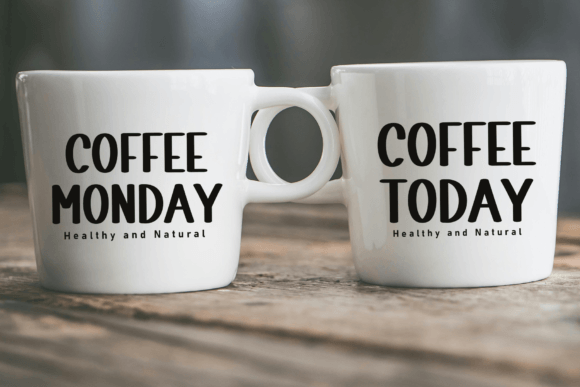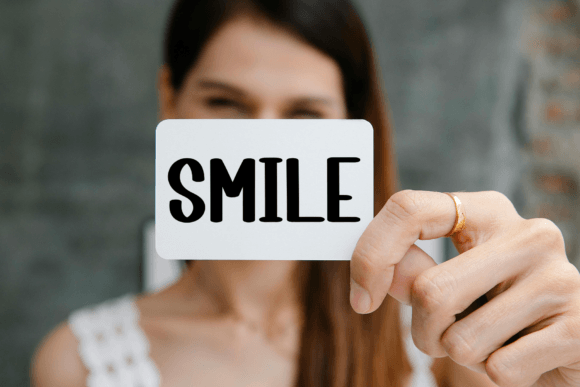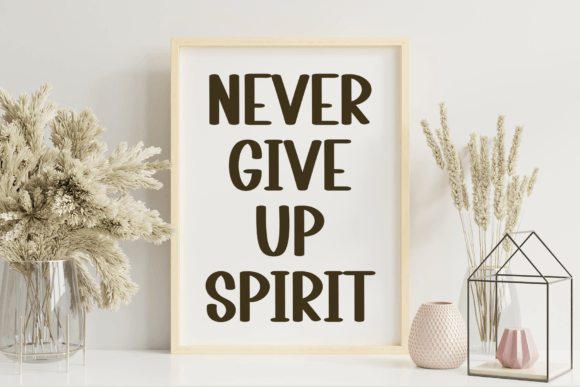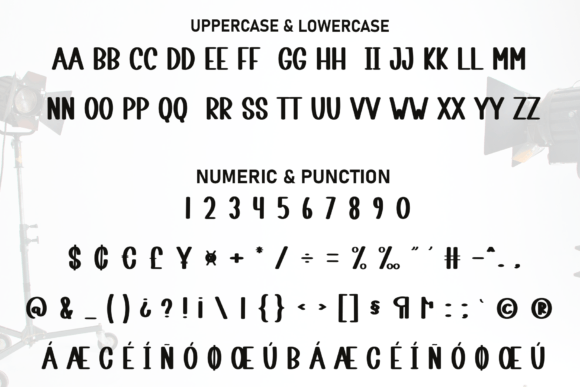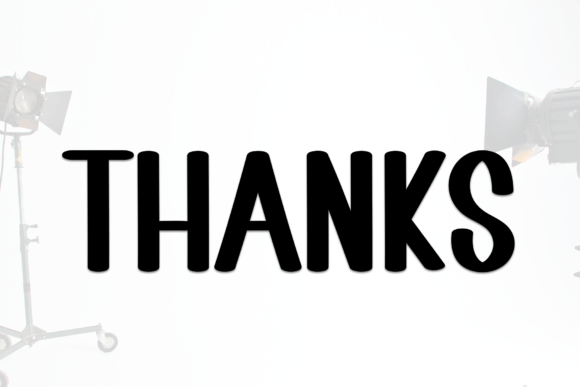
Introduction to Simple Lighting Font
Simple Lighting is a neat and beautiful handwritten font described by an elegant touch, perfect for your favorite projects.
Fall in love with its incredibly distinct and timeless style, and use it to create spectacular designs .